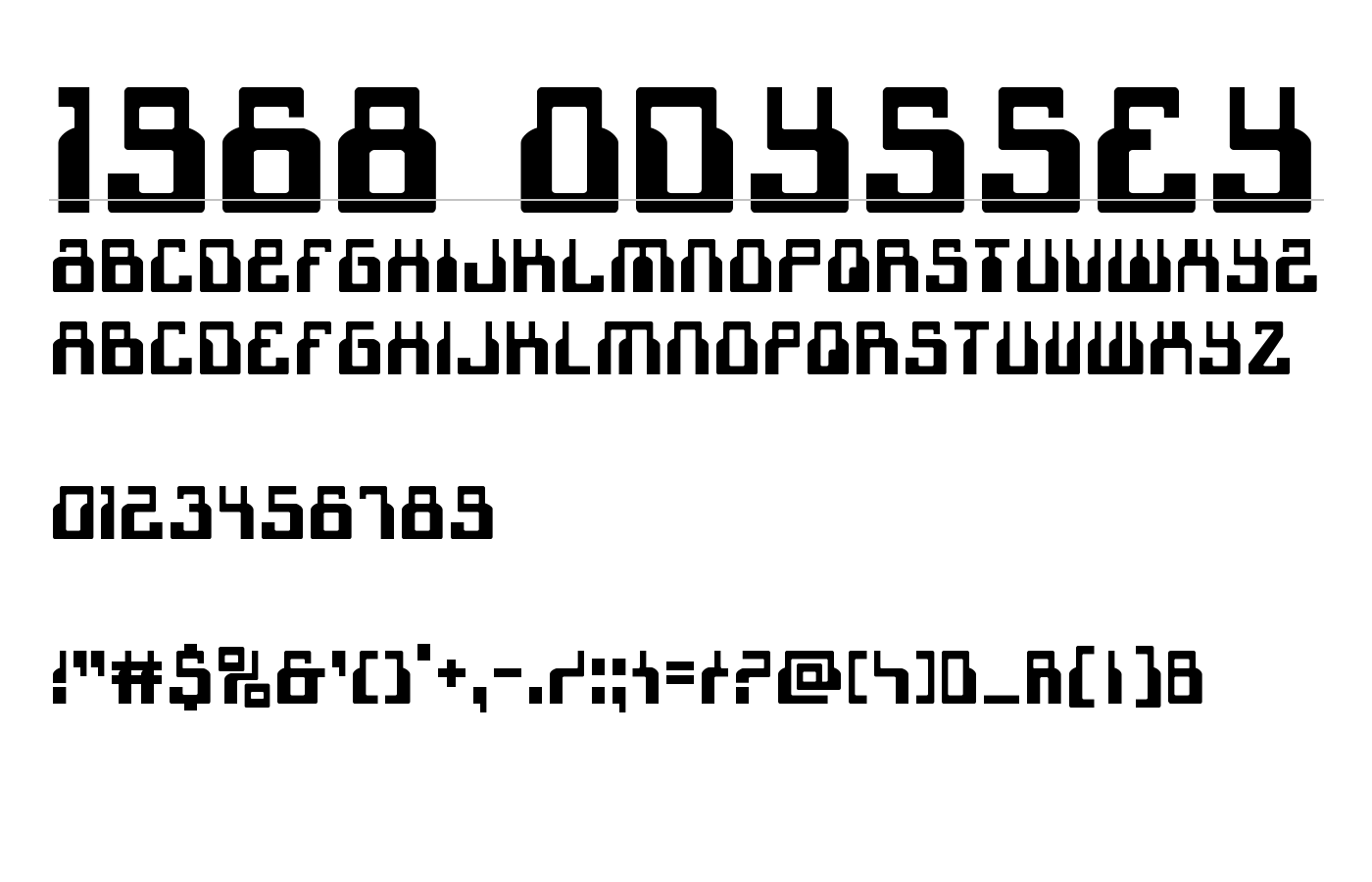
1968 Odyssey is a bold, condensed sans serif font with a retro-futuristic feel, featuring high contrast between thick and thin strokes and distinctive square shapes with sharp corners. Its geometric and mechanical style evokes a vintage science fiction vibe, making it ideal for headlines, posters, and branding projects that want to convey a strong, tech-inspired personality. This font works well where a unique and striking display typeface is needed to capture attention and create a memorable impact.
1968 Odyssey Font